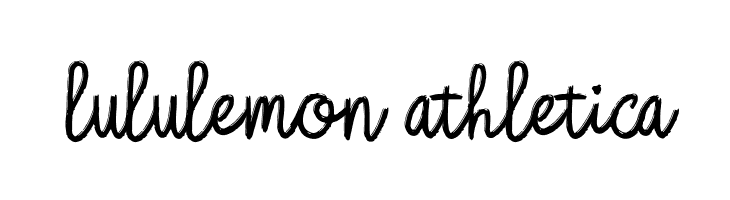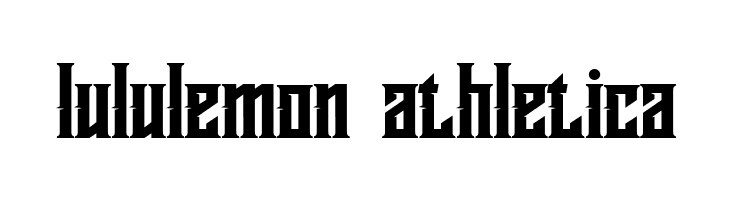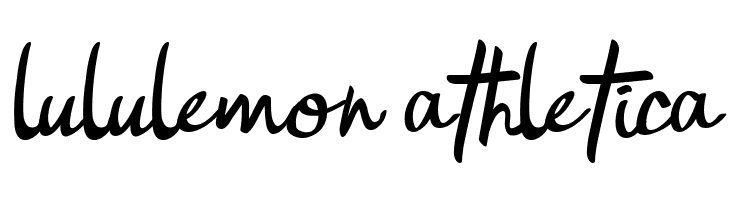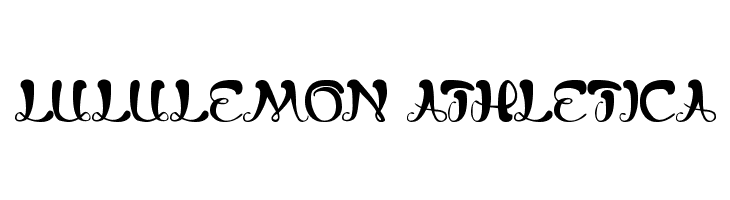
A bold, geometric grid-based font with a modern and decorative style.
A bold, geometric font with a modern, futuristic style.
A sleek, modern font with geometric, minimalistic design and rounded corners.
A sleek, modern italic font with geometric precision and a dynamic appearance.
A modern, geometric font with thin, uniform lines and a minimalist design.
A sleek, modern font with a futuristic and slightly italicized design.
A bold, angular font with a digital, futuristic style.
A bold, graffiti-inspired font with sharp, angular lines and dynamic energy.
A bold, dynamic font with sharp angles and high contrast, perfect for impactful designs.
A bold, angular serif font with a modern twist, ideal for impactful designs.
A bold, angular serif font with a strong, authoritative presence.
A bold, playful display font with a cartoonish style.
A bold, playful font with exaggerated curves and a lively appearance.
An elegant, script-like font with flowing curves and a calligraphic style.
A cursive, calligraphic font with elegant loops and flourishes.
An elegant, flowing script font with smooth, cursive strokes.
A fluid, elegant script font with a handwritten style.
A rounded, modern font with smooth curves and consistent stroke width.
A modern, rounded font with a friendly and approachable style.
A bold, handwritten-style font with dynamic brush strokes.
A bold, expressive script font with a hand-drawn, dynamic style.
A bold, angular font with a modern, edgy style inspired by Asian calligraphy.
A bold, angular font with a modern, futuristic style.
A graceful script font with fluid, cursive strokes and connected characters.
An elegant, cursive font with fluid, connected strokes and a refined aesthetic.
A playful handwritten font with bold, dynamic strokes and a lively aesthetic.
A playful, handwritten font with smooth curves and a lively style.
A playful, cursive script font with dynamic, flowing letterforms.
A flowing, cursive script font with a natural handwritten style.
A flowing, cursive font with a handwritten, elegant style.
A bold, heavy font with a unique textured pattern for dynamic visual appeal.
A modern, decorative font with hollow, outlined characters.
A playful, sketchy font with a hand-drawn, textured appearance.
A bold, distressed font with a grunge aesthetic, perfect for edgy designs.